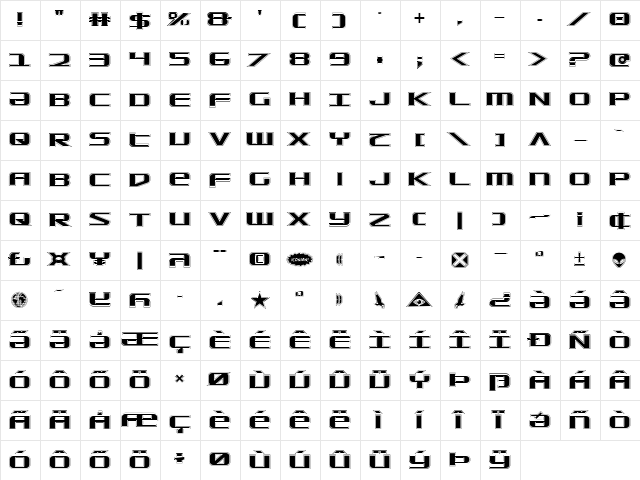
SDF College College
Style: College
Designer: Daniel Zadorozny
Design Context for SDF College
SDF College brings high-energy athletic personality to the page - its confident, muscular forms are built for impact.
A natural choice for gym brands, fantasy sports, jersey lettering, and action-driven headlines.
Font Pairing: Use alongside a condensed or geometric sans for supporting copy - keep the pairing bold, functional, and free of ornament.
Pro Tip: Use SDF College in all-caps headlines where its athletic energy can fully express itself. Pair with a solid, simple sans for supporting text.